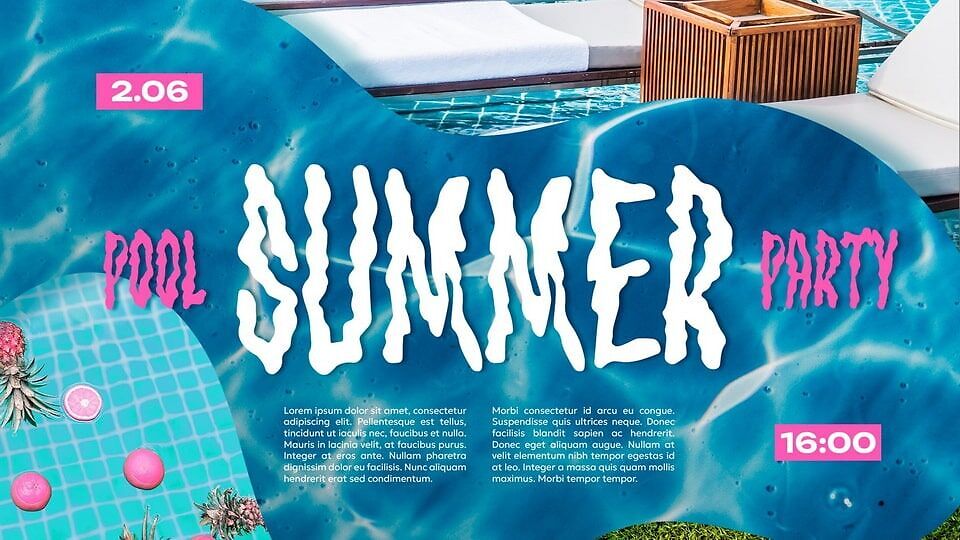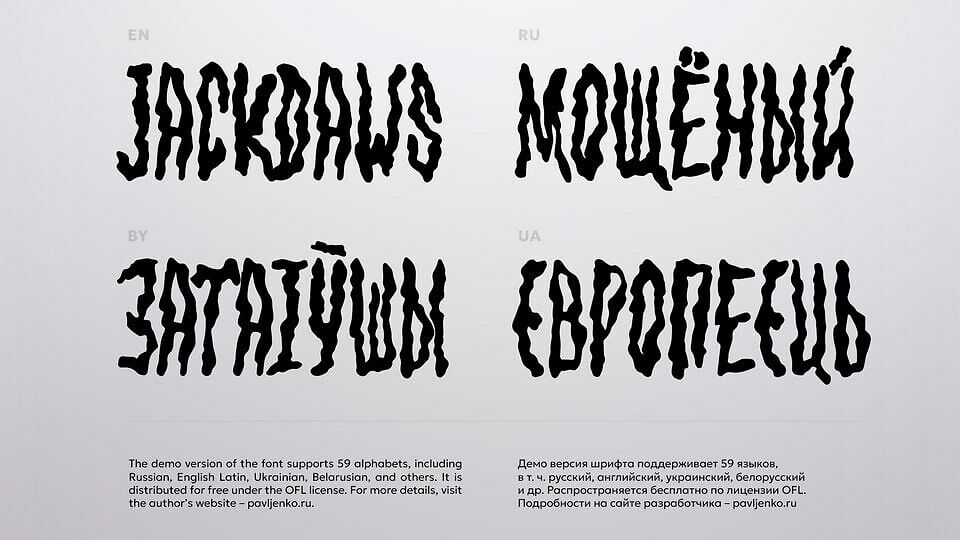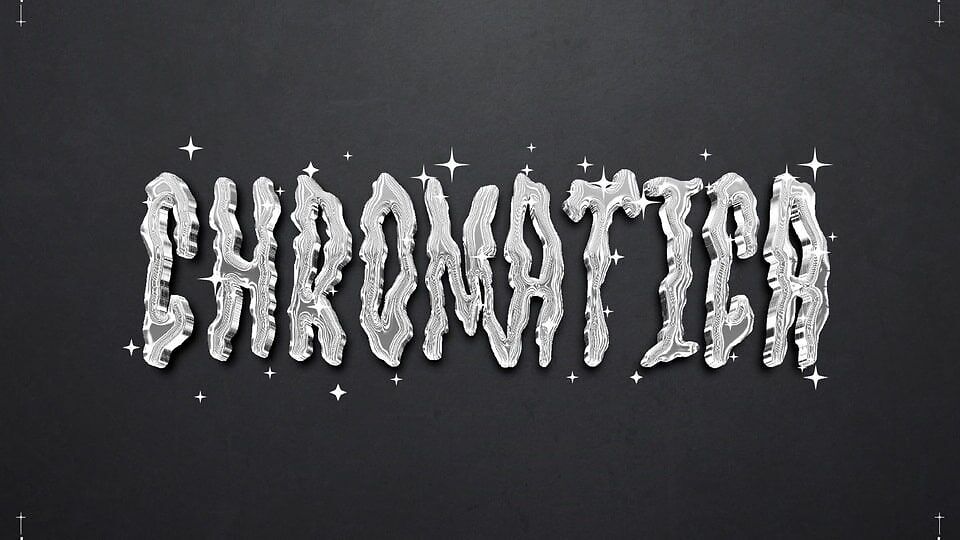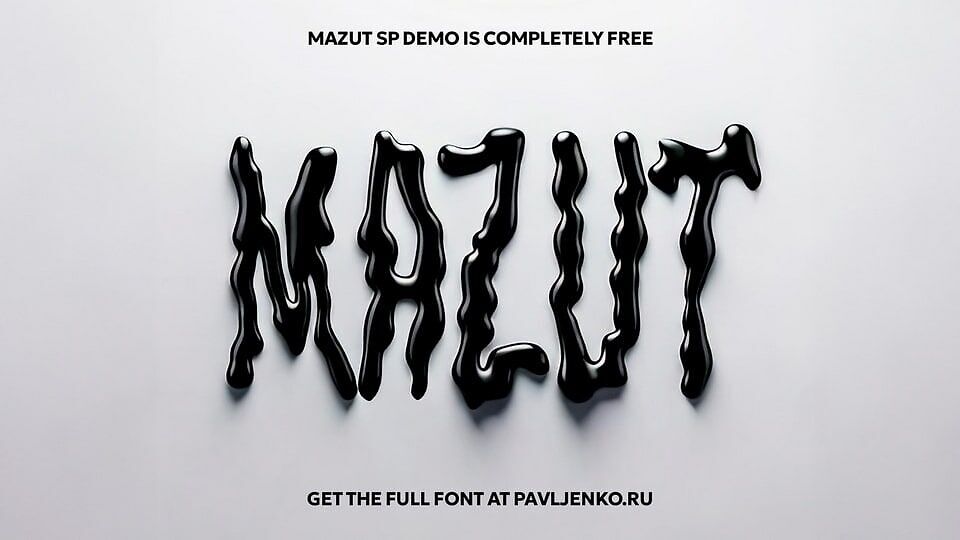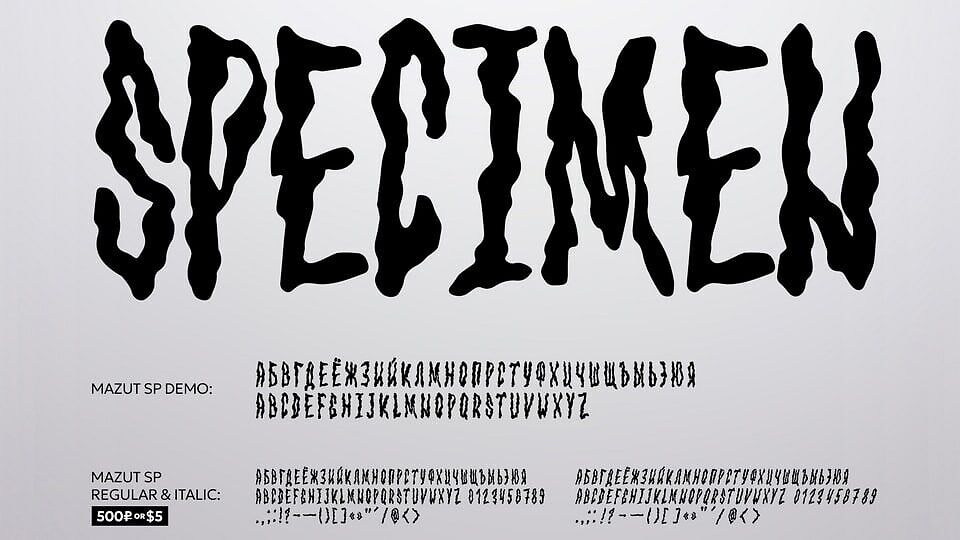
Mazut SP is an experimental display font with fluid, melted outlines reminiscent of oil drops or liquid metal. It is distinguished by organic shapes that create an effect of instability and movement.
The font references psychedelic design, grunge, and horror typography. Mazut SP is ideal for posters, album covers, and posters for alternative events, as well as for art projects and conceptual branding.